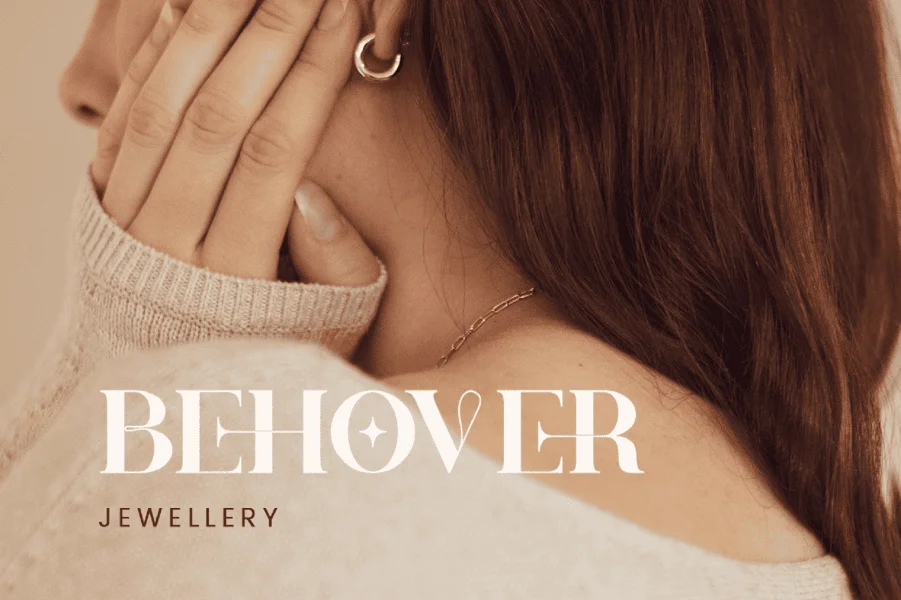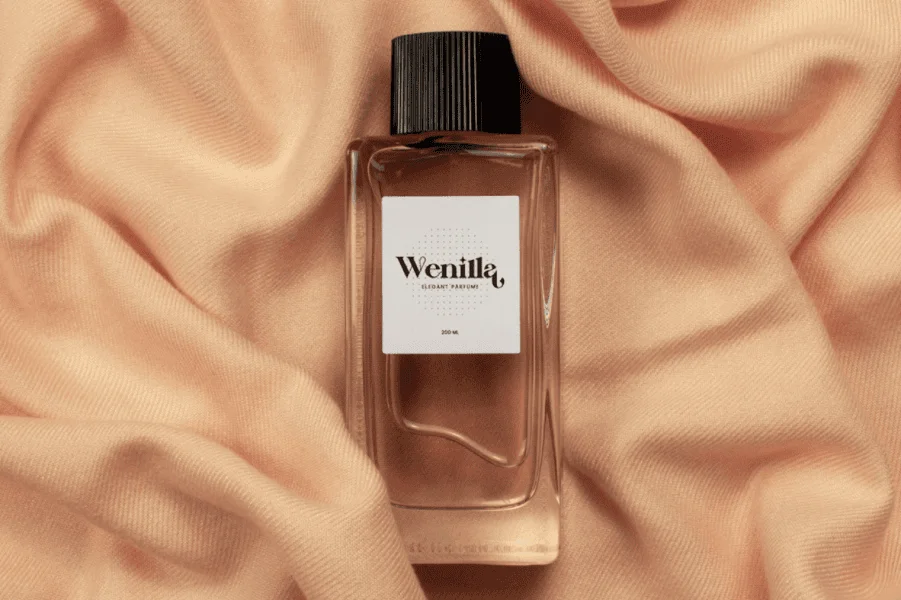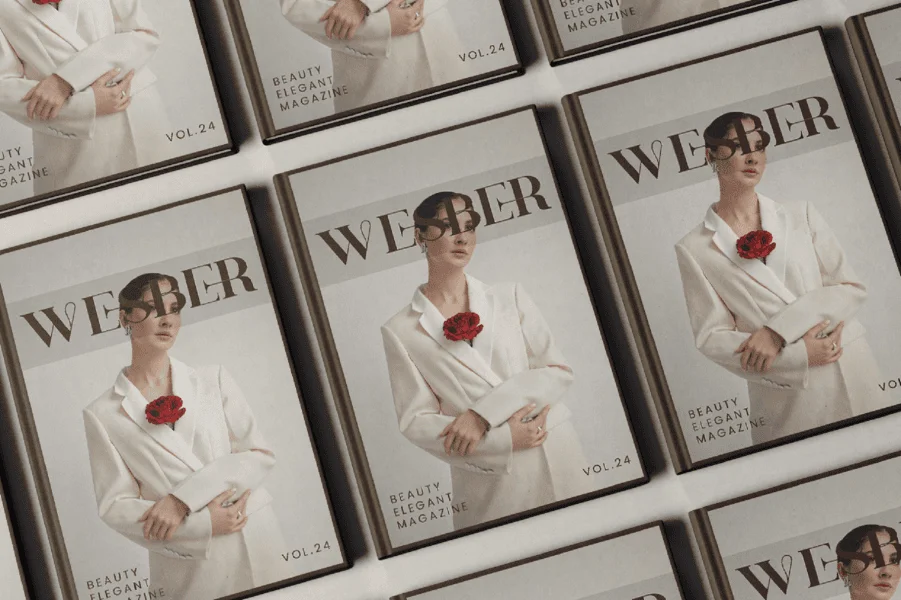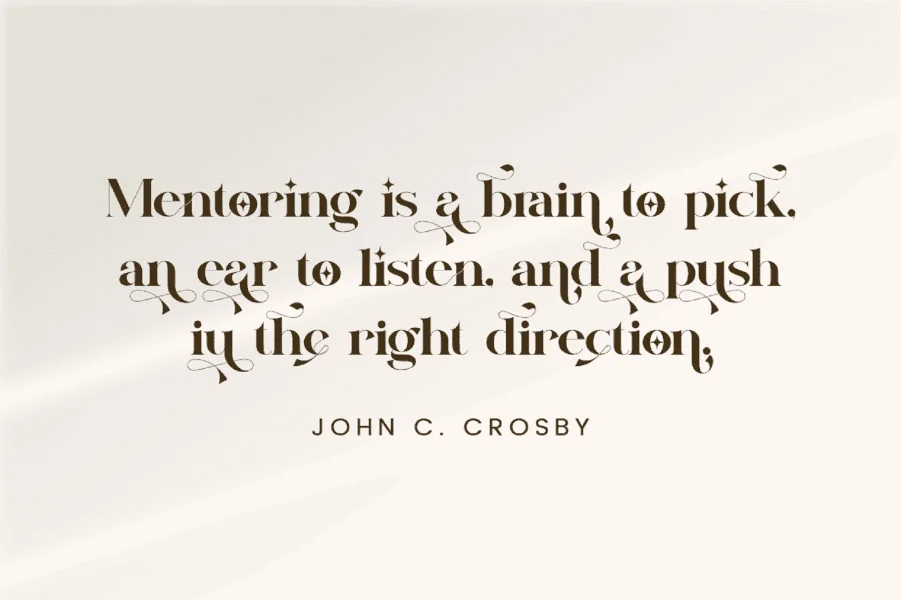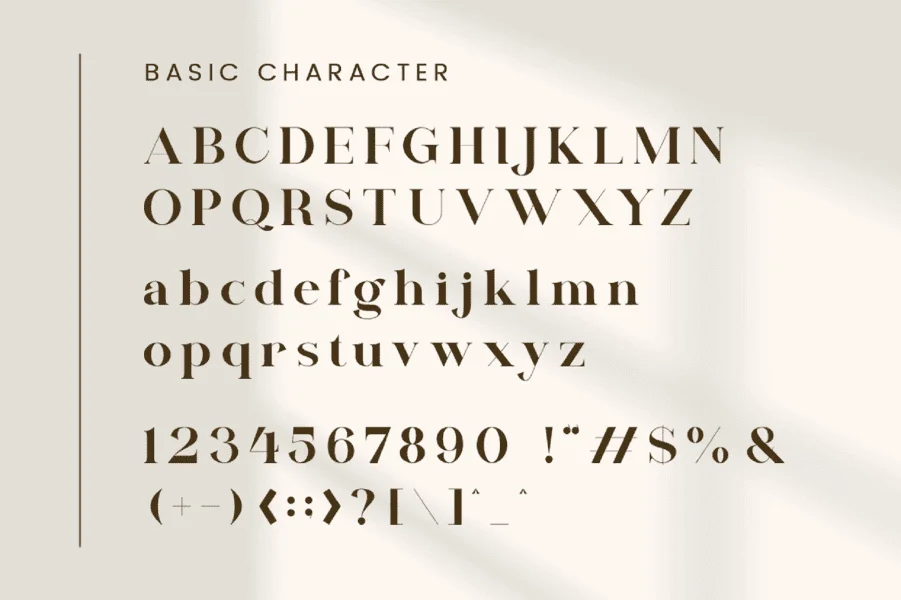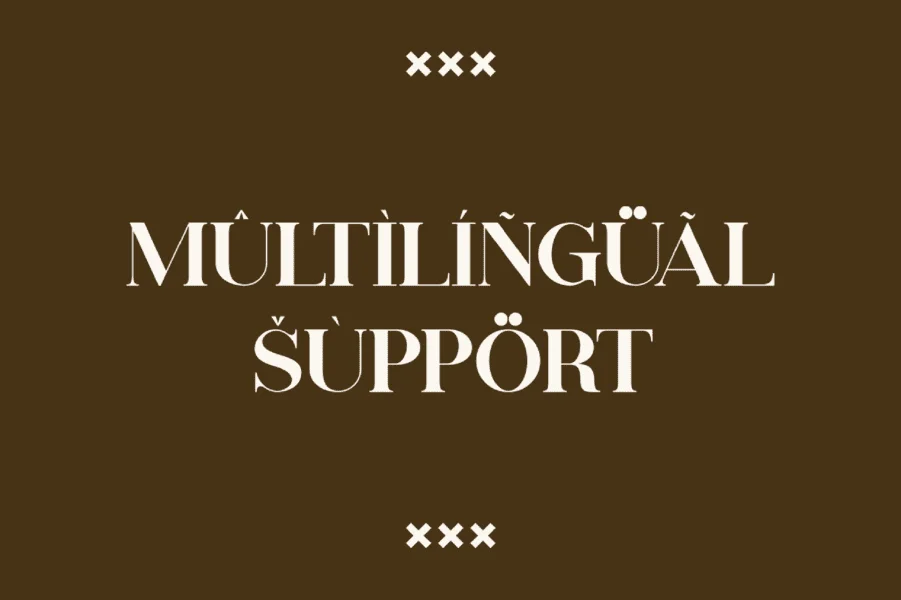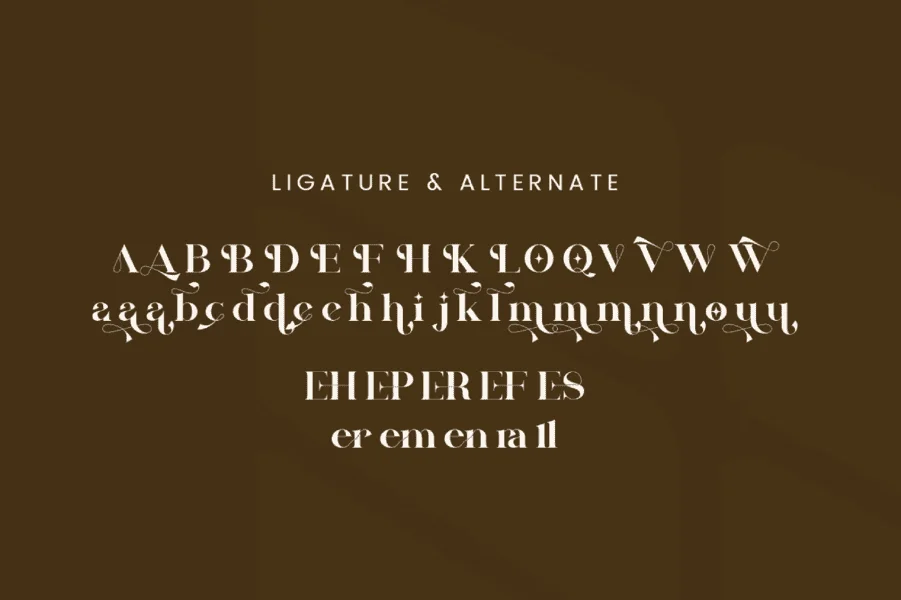
Emira is an elegant, high-contrast serif display typeface that balances structured geometry with fluid, expressive details. Its design is characterized by a dramatic ratio between robust, heavy downstrokes and delicate, thin horizontal strokes. The letterforms feature sharp, flat-cut serifs alongside sweeping, calligraphic curves, particularly visible in the lowercase terminals and descenders. This interplay of rigid verticality and organic swashes creates a sophisticated, rhythmic texture that commands attention while maintaining a refined posture.
This typeface is exceptionally suited for high-end editorial layouts, luxury branding, and sophisticated packaging designs. Its expressive character shapes make it a natural fit for fashion magazine mastheads, cosmetic labels, and jewelry branding where a sense of premium craftsmanship is required. Emira performs best at display sizes, allowing its intricate details, sharp terminals, and optional decorative swashes to shine on book covers, posters, and digital landing pages.